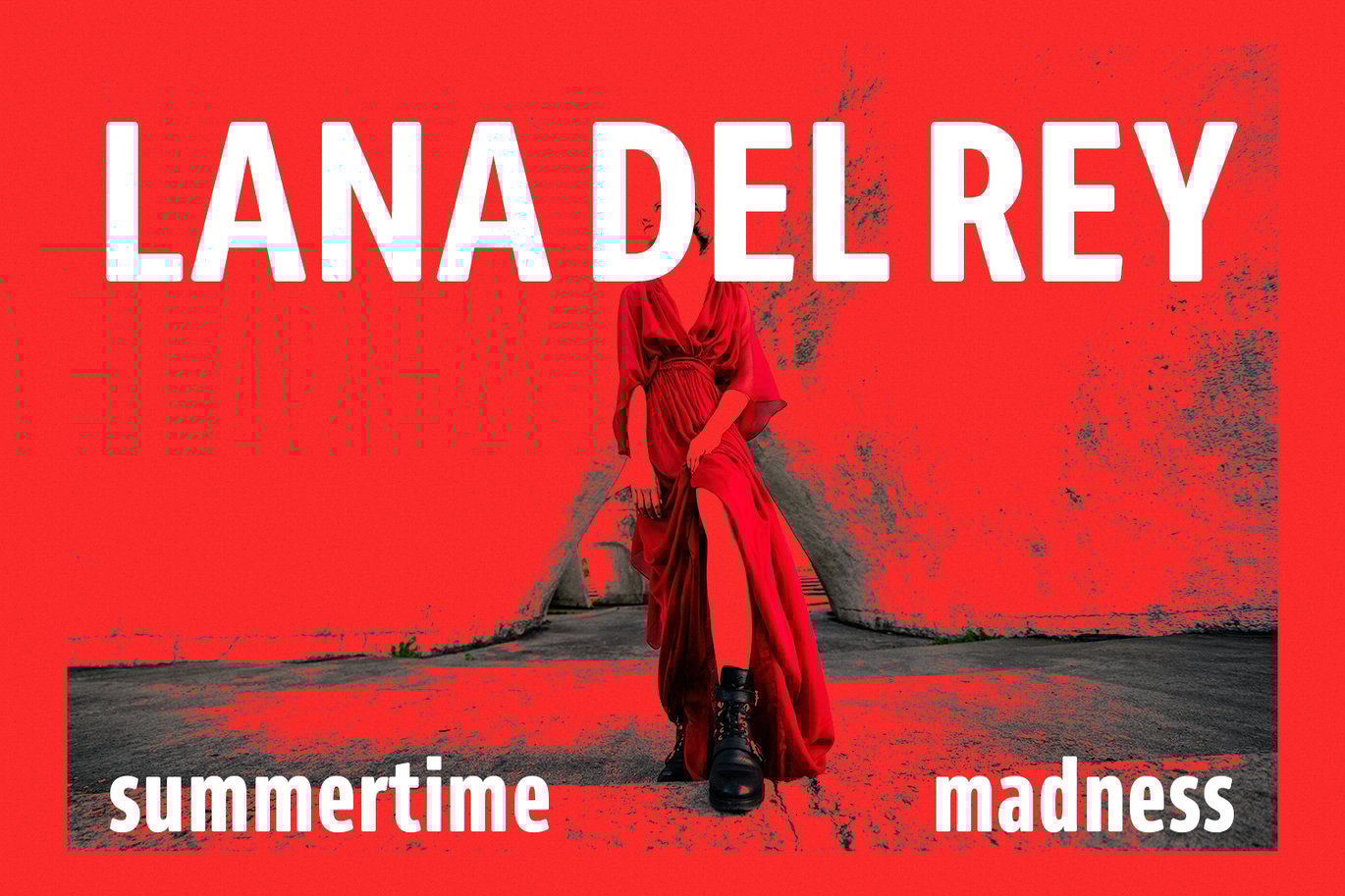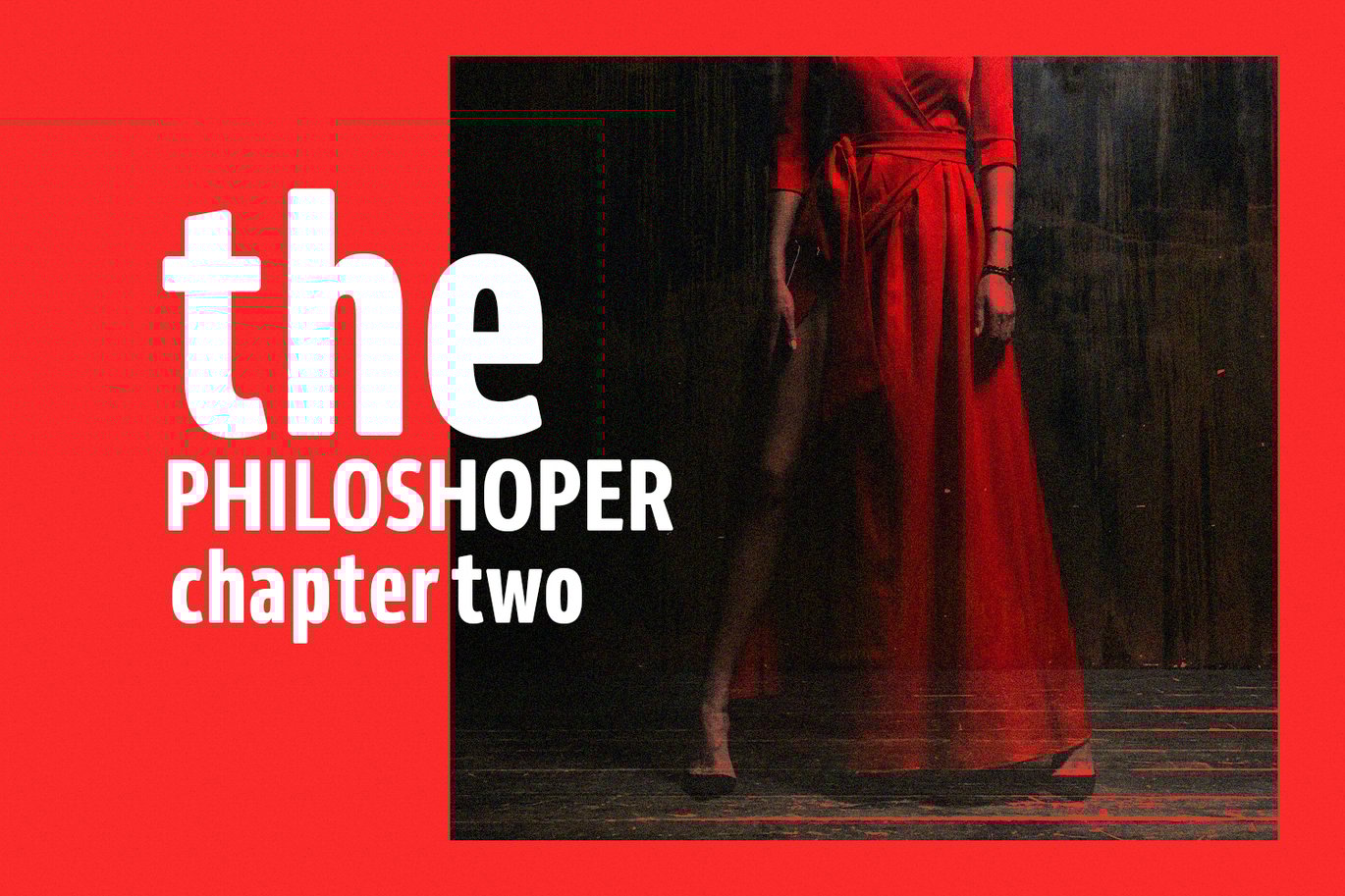
Earlgos Condensed Sans Font
Earlgos Condensed Sans Font is a versatile typeface ideal for various projects, including Sans-Serif, logos, branding, posters, blog headers, advertisements. The free version includes a full set of uppercase and lowercase letters, available in OTF, TTF, WOFF format.